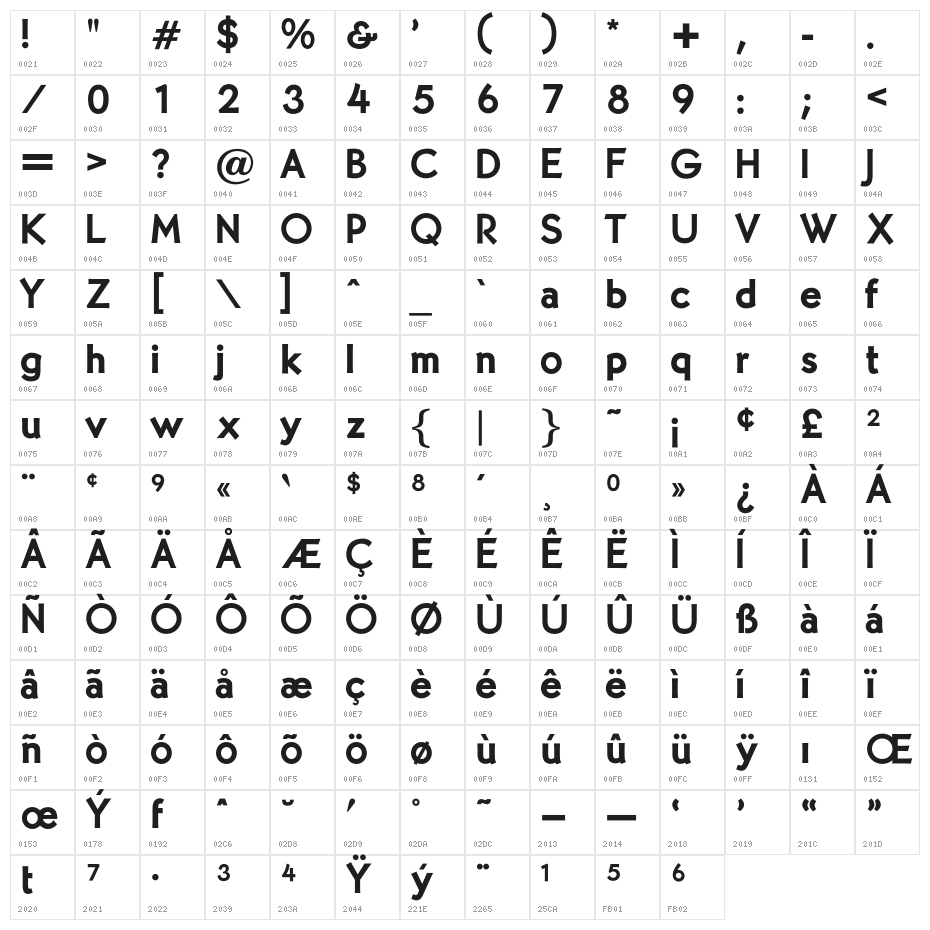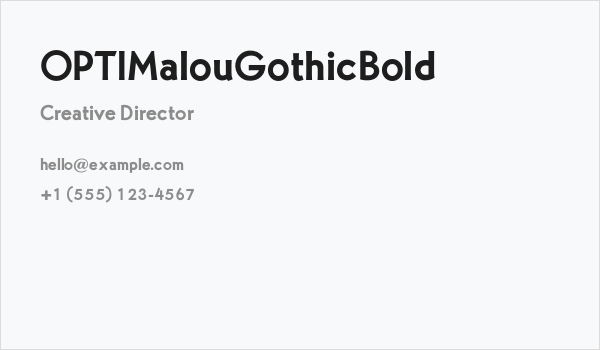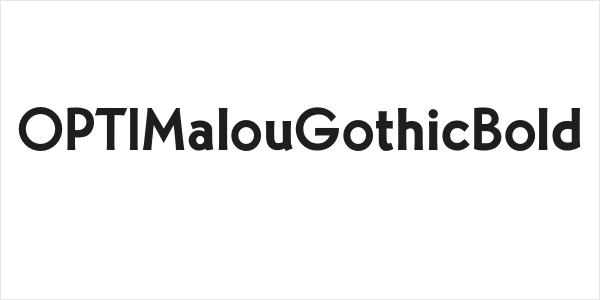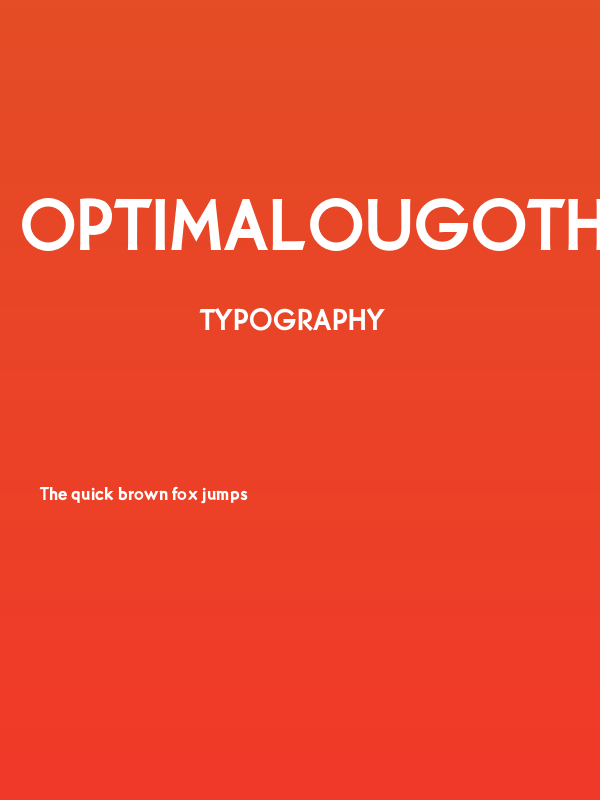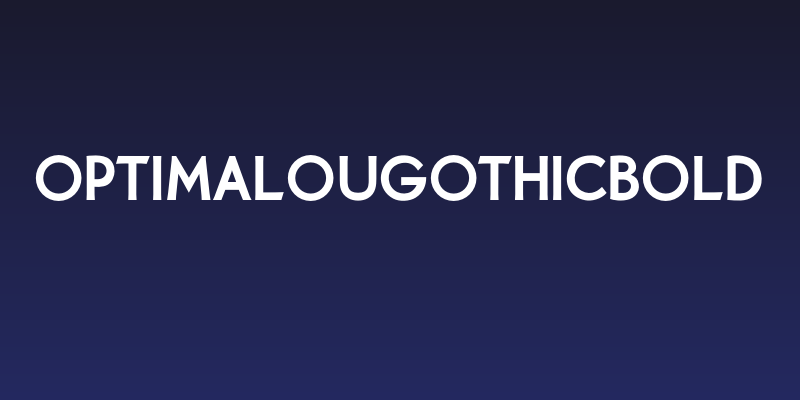
OPTIMalouGothicBold Font
OPTIMalouGothicBold Description
This font features a bold and modern sans-serif style with clean lines and a strong presence. The uppercase and lowercase letters are well-proportioned, offering a harmonious balance that enhances readability. The numerals are distinct and clear, making them suitable for various applications. Special characters are included, providing versatility for different uses. The overall design is straightforward yet impactful, making it ideal for projects that require a contemporary and assertive look.
| Use Case | Headlines, Logos, Advertising |
| Proposed Projects | Ideal for branding, advertising, headlines, and digital media where a bold statement is needed. |